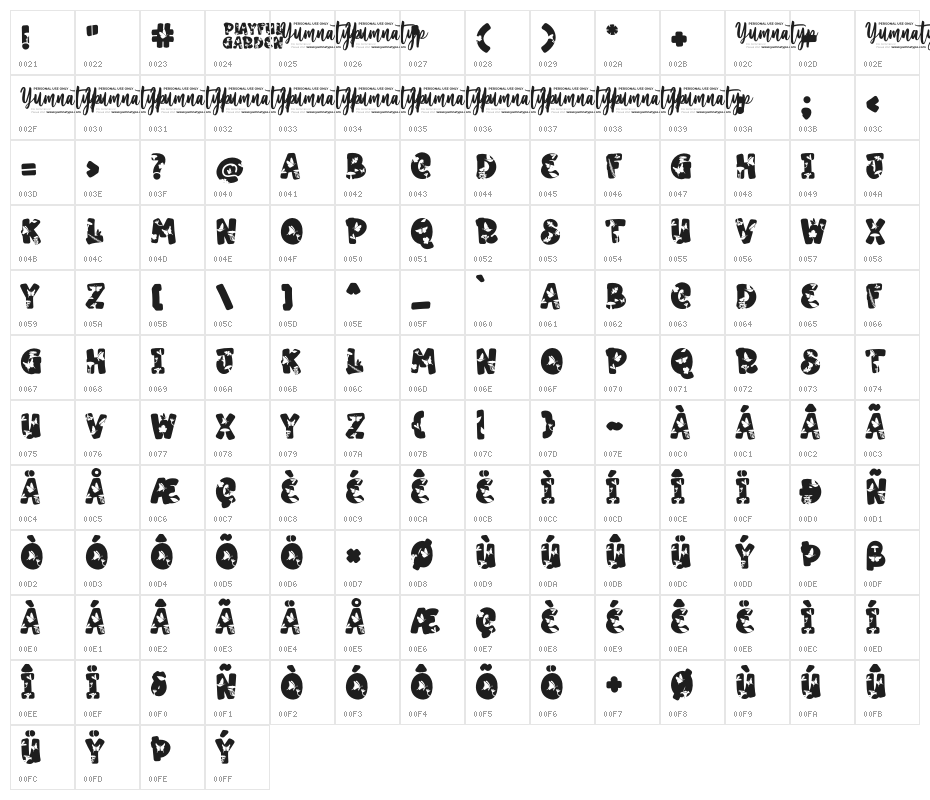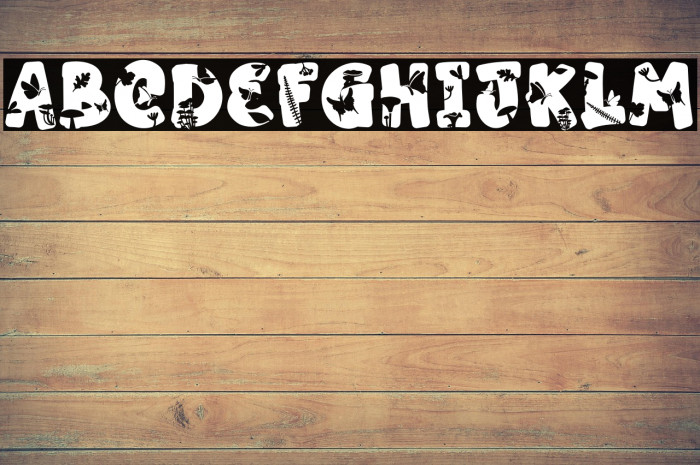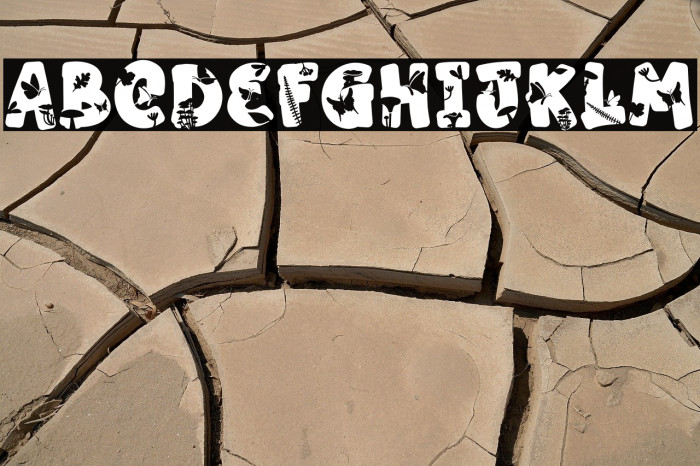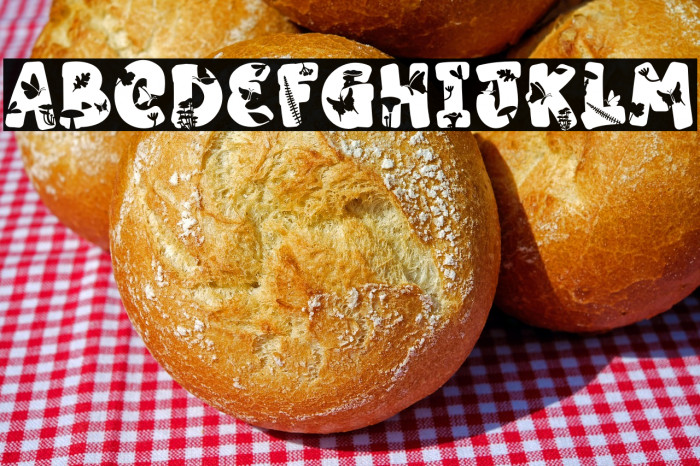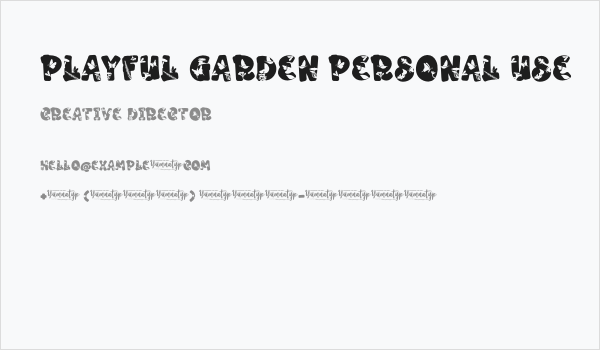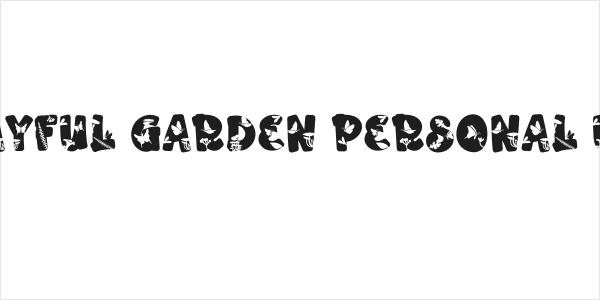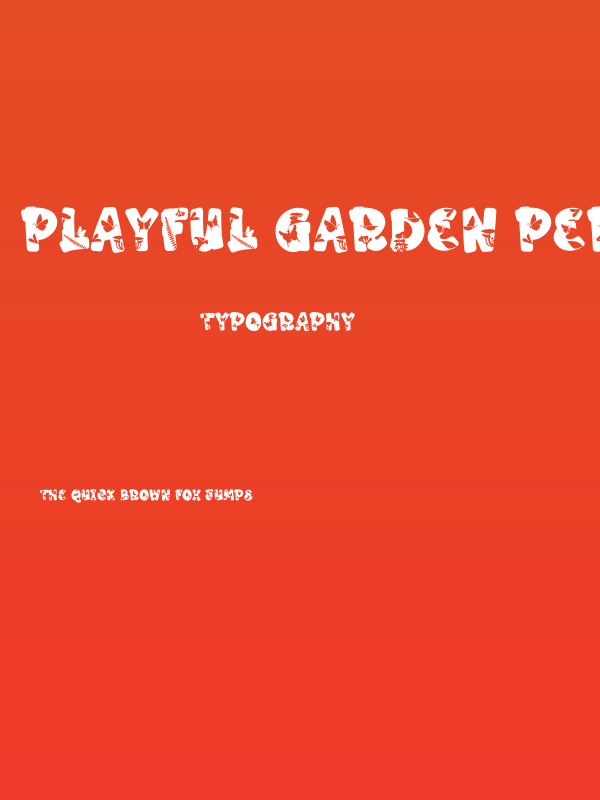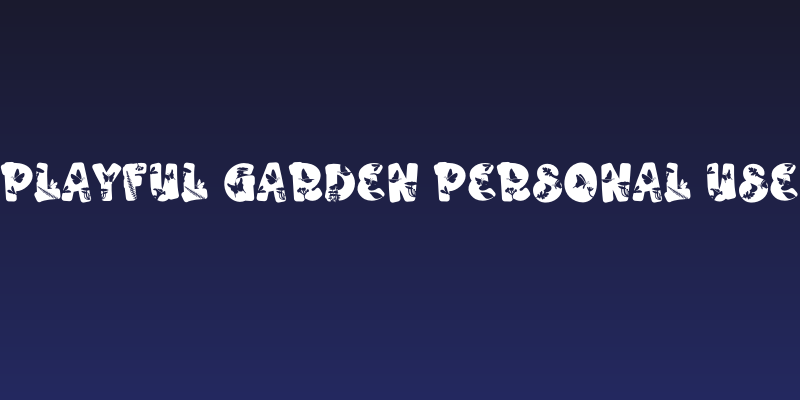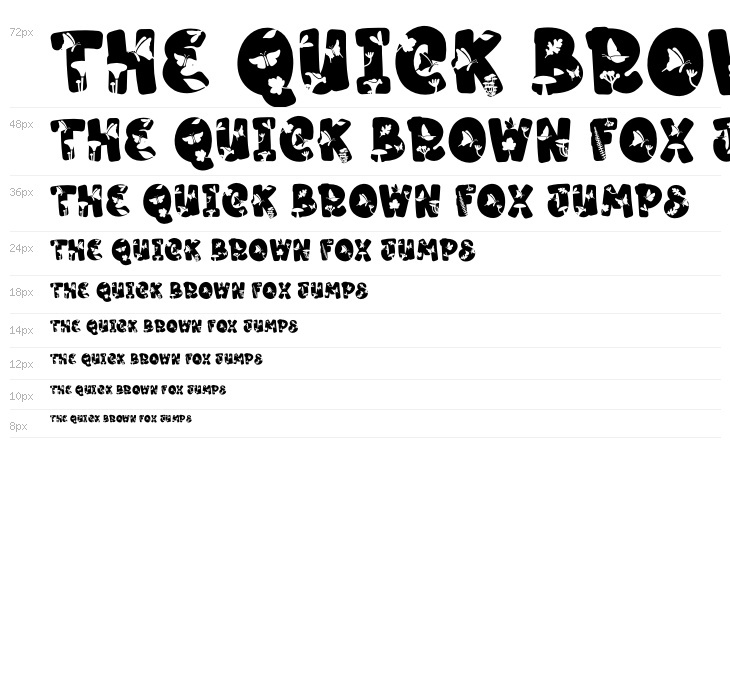
Playful Garden Personal Use Font
Playful Garden Personal Use Description
This font features a whimsical and playful design, incorporating garden-themed elements such as leaves and flowers within the bold, rounded letterforms. The characters are creatively filled with intricate patterns, giving each letter a unique and decorative appearance. This font exudes a sense of fun and creativity, making it ideal for projects that require a lively and engaging aesthetic. The boldness of the letters ensures readability while the decorative elements add a touch of charm and personality.
| Overall Style | Playful, Decorative |
| Proposed Projects | Ideal for children's books, garden-themed invitations, playful branding, and creative posters. |